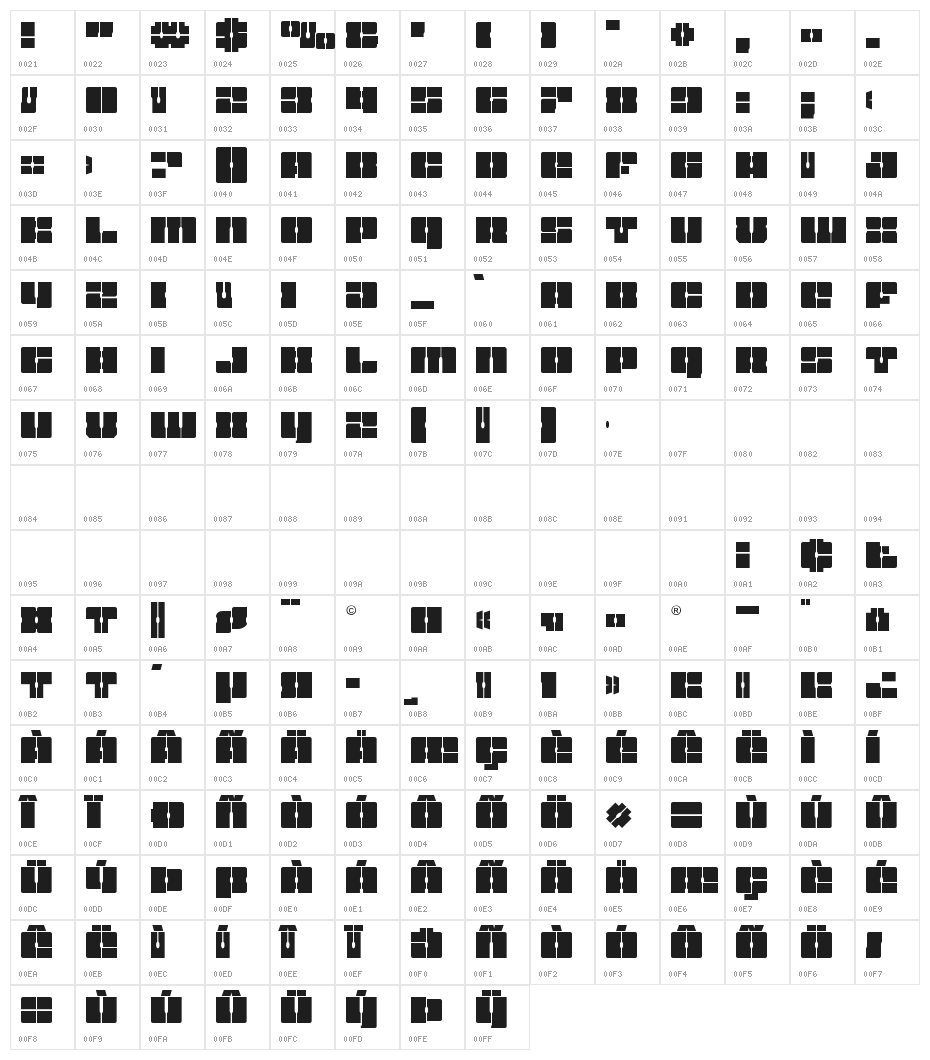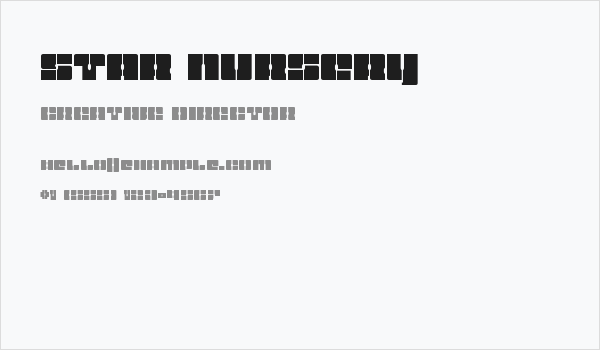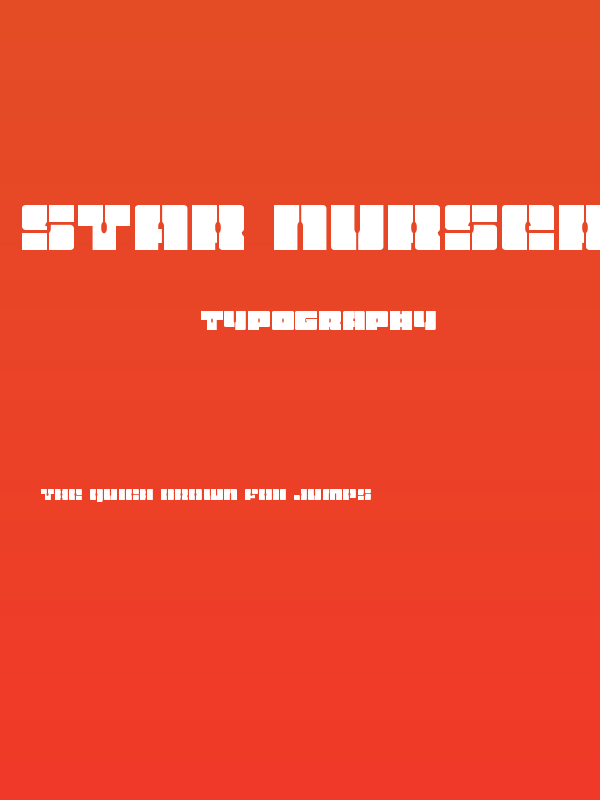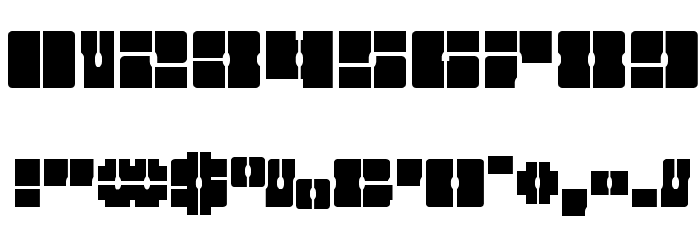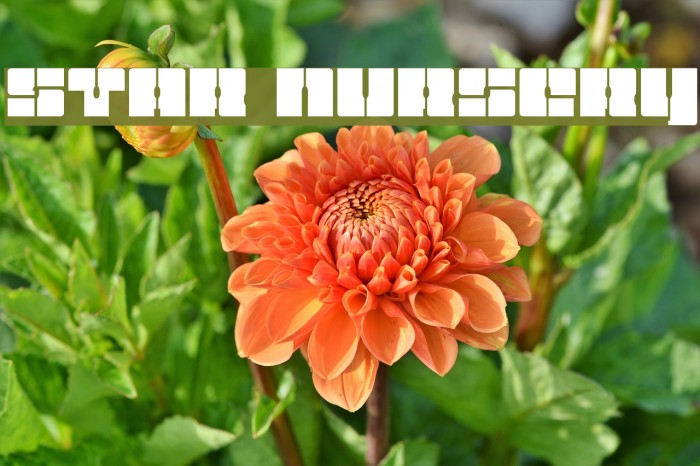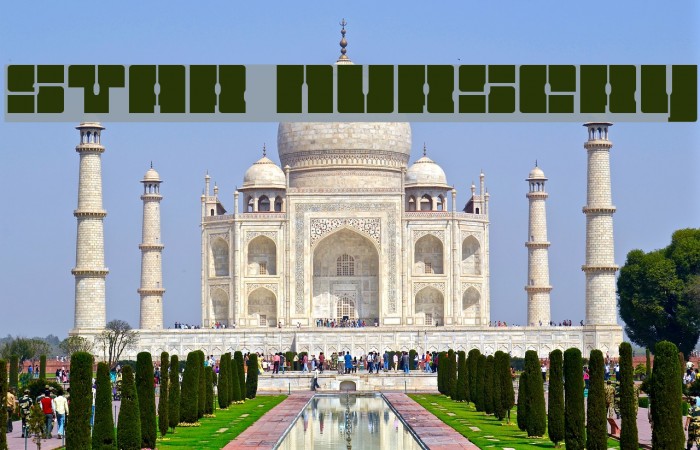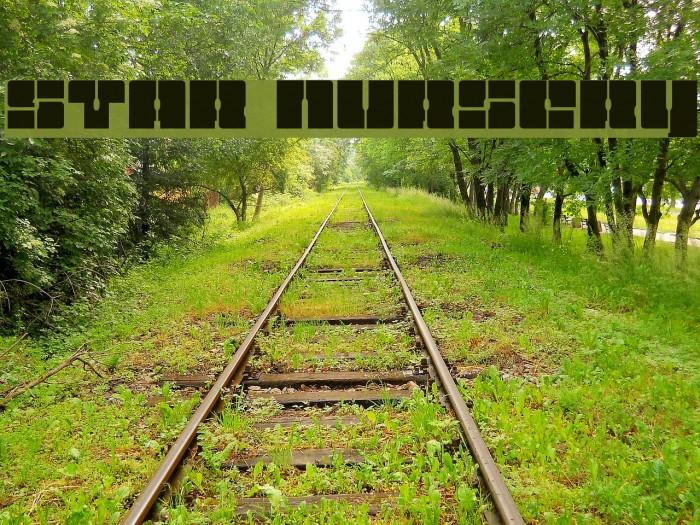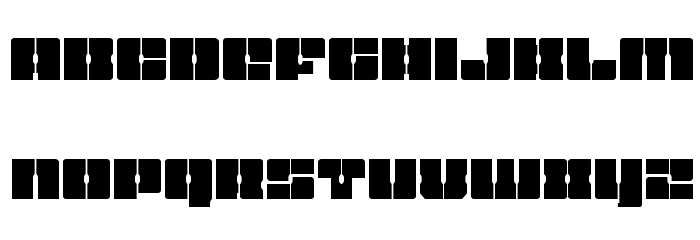
Star Nursery Font
Star Nursery Description
This font features a bold and geometric design with a futuristic flair. Each character is constructed with solid, block-like shapes, giving it a strong and impactful presence. The letters are uniformly wide, creating a sense of balance and stability. The unique cut-out sections within each character add a modern and innovative touch, making the font stand out. Its boldness and distinct style make it suitable for attention-grabbing headlines and creative projects. The font's design is consistent across uppercase, lowercase, numbers, and special characters, maintaining its cohesive appearance.
| Overall Style | Futuristic, Modern |
| Proposed Projects | Ideal for sci-fi themed posters, video game titles, tech branding, and modern advertising. |